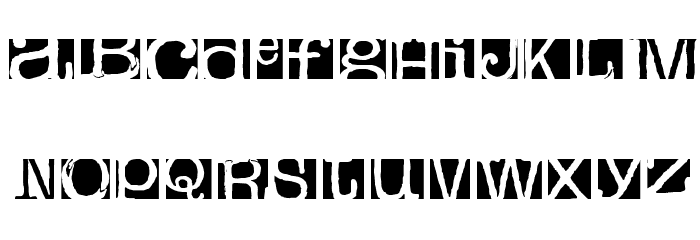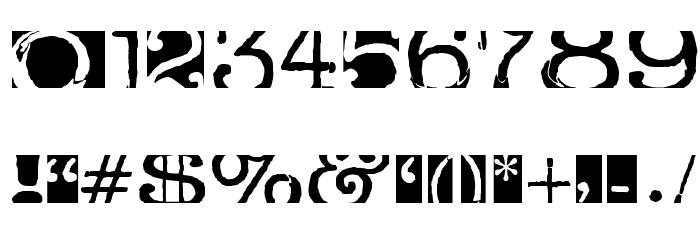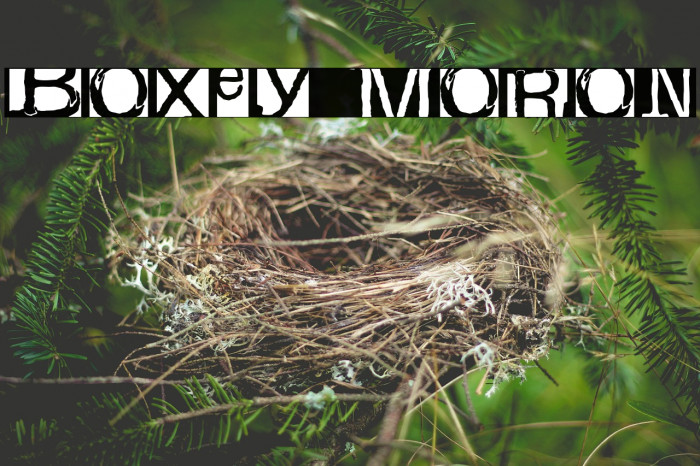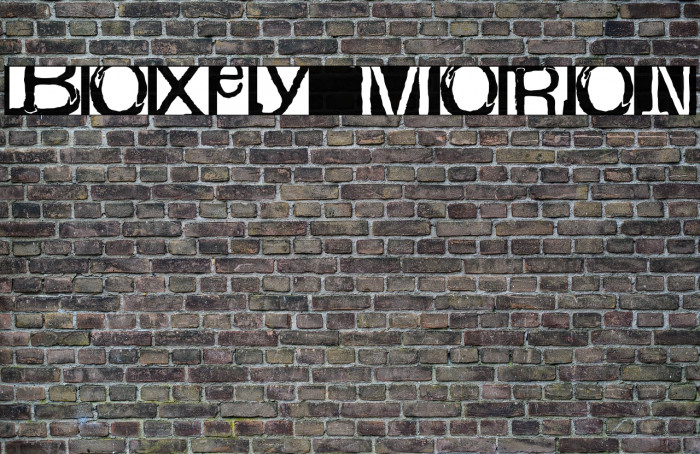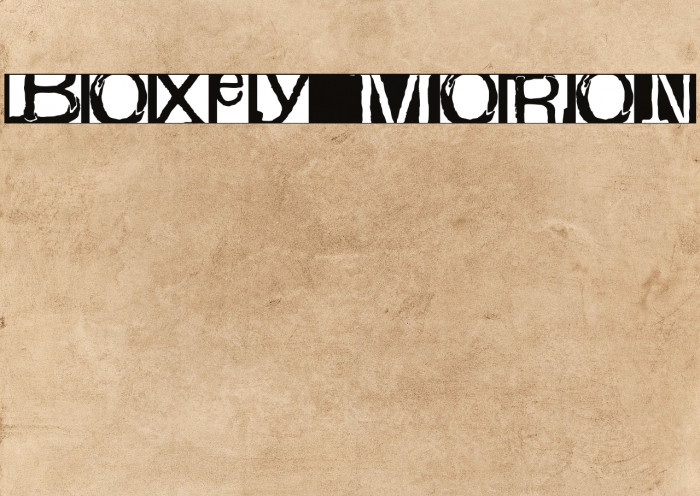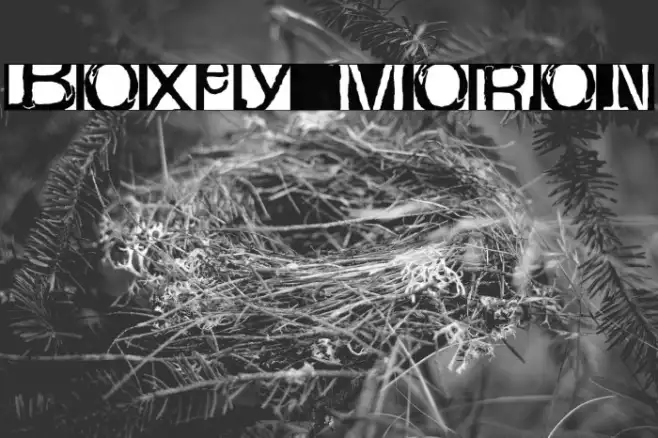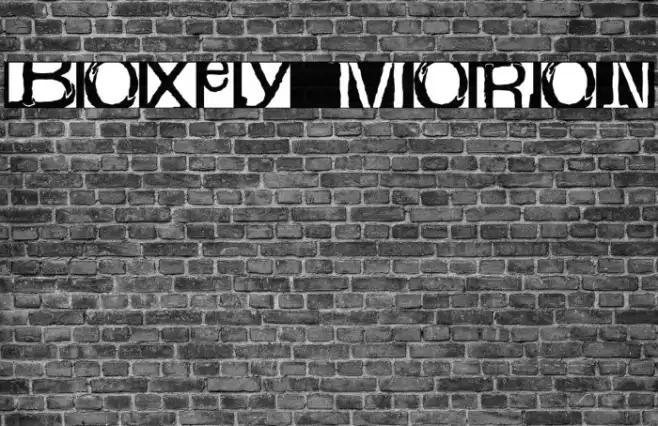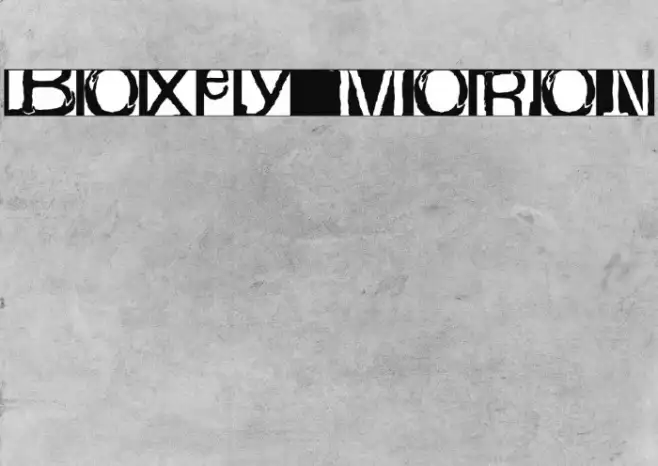
boxey moron Font
This font features a highly decorative and abstract style, with each character exhibiting unique, artistic distortions and cutouts. The design is bold and eye-catching, making it suitable for creative and unconventional projects. The uppercase and lowercase letters maintain a consistent height, while the numbers and special characters follow the same artistic theme. The font's intricate design elements create a sense of movement and energy, making it stand out in any context.
A bold, decorative font with abstract distortions and artistic cutouts.
- Proposed Projects: Ideal for posters, album covers, artistic projects, and branding that requires a bold statement.